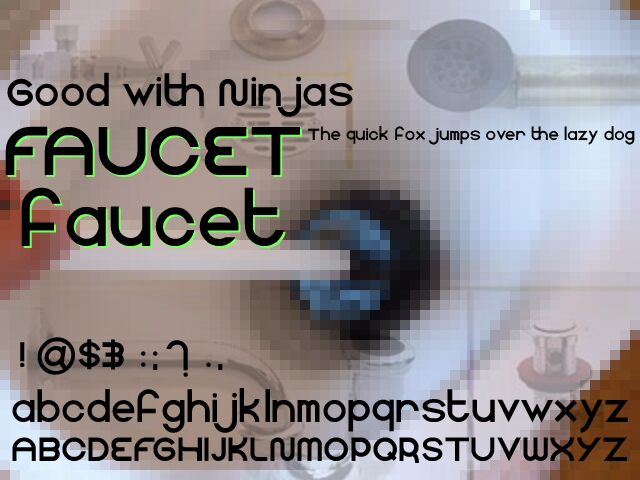
Faucet by Kirk Shelton is a free geometric sans serif with broad circular forms and an unusually open, flowing silhouette. Its nearly even strokes keep the lettering calm and clean.
Contemporary architecture and streamlined product design suit its rounded geometry, making it useful for identity systems, packaging, and editorial covers. On signage and digital graphics, the wide curves give simple messages a distinctly designed shape rather than an anonymous neutral voice. It is most convincing in branding, where the soft geometry can suggest modern furniture, interiors, or carefully made household goods.